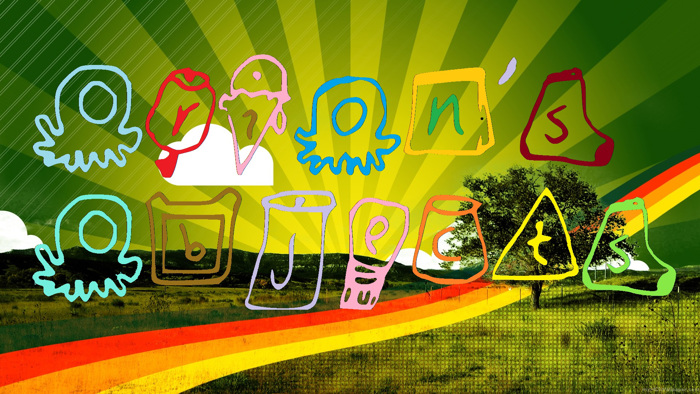
Orions_Objects Font
Words are cool but we often consider pictures much cooler. So I thought why not combine the two and create a font with symbols based on the letter. For example F is fish, and X is xylophone.
In case you were wondering, E is eraser and Q is quilt.